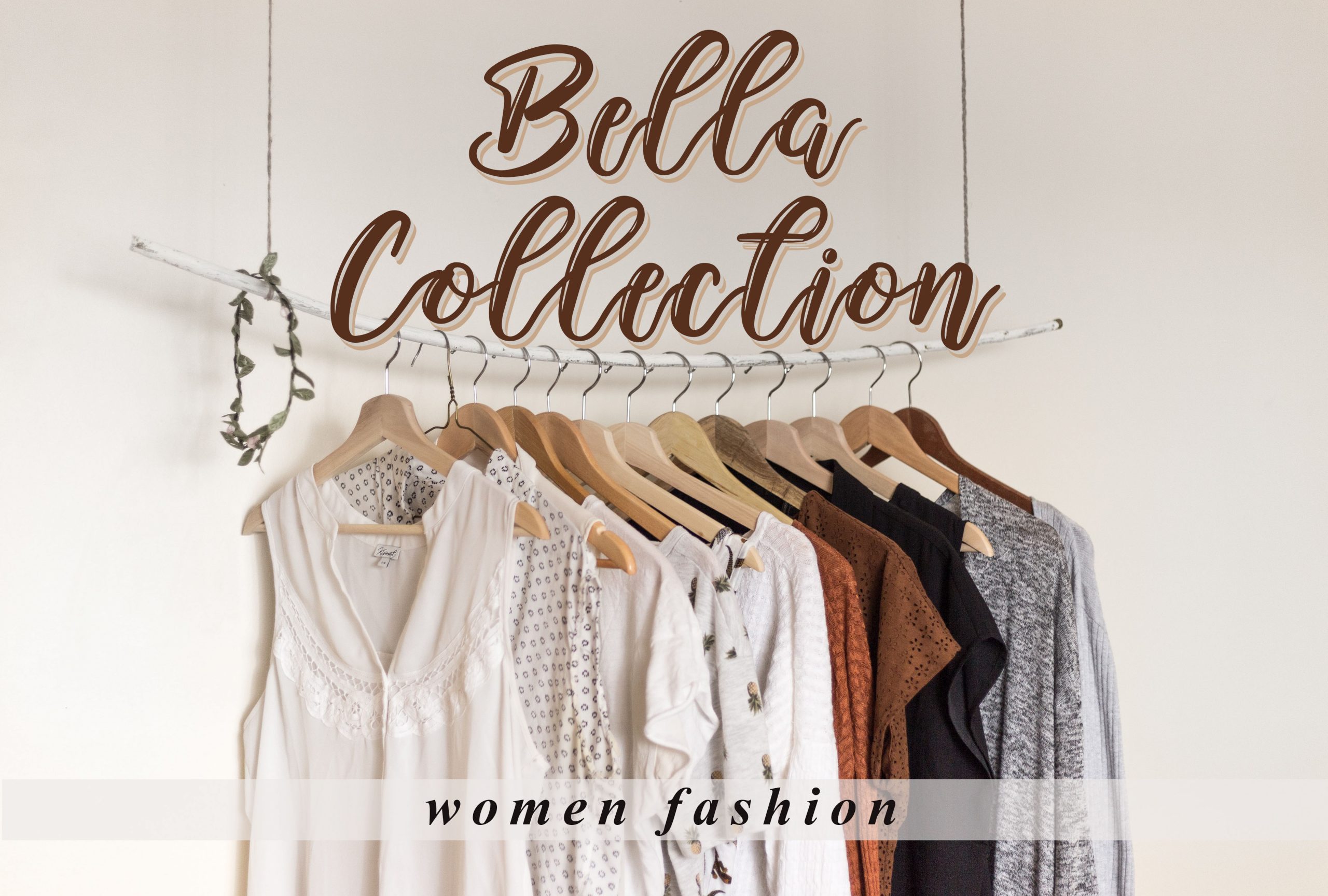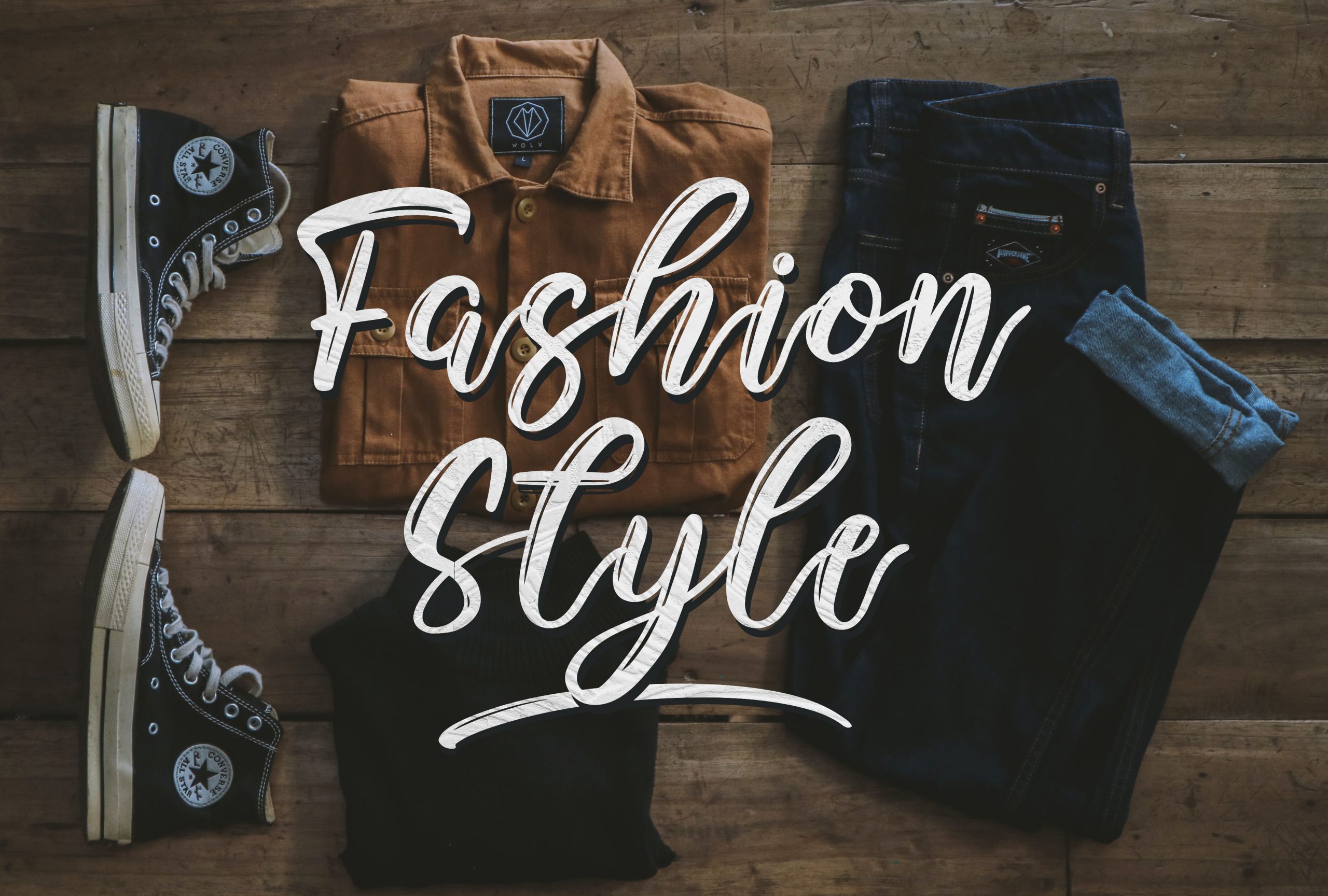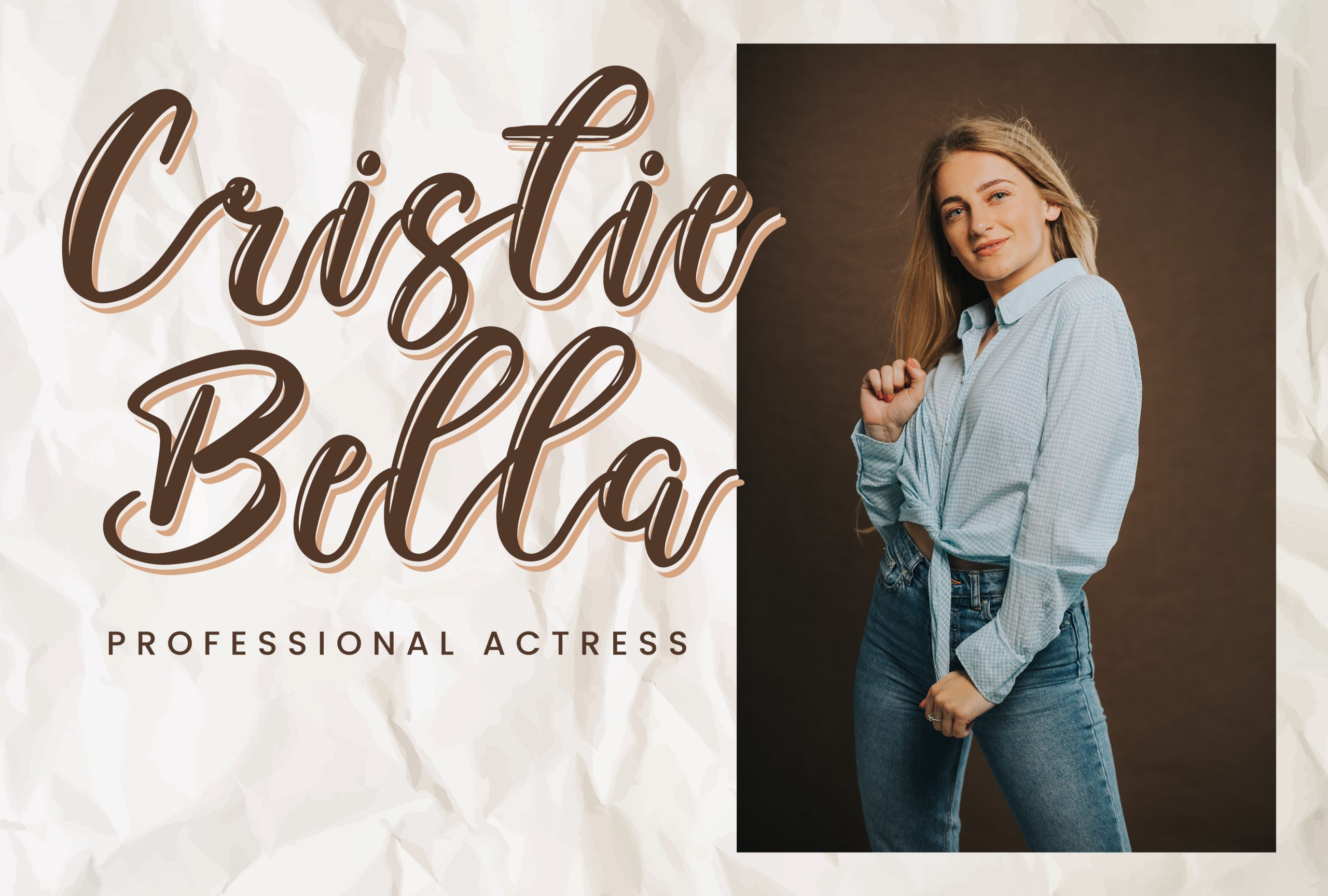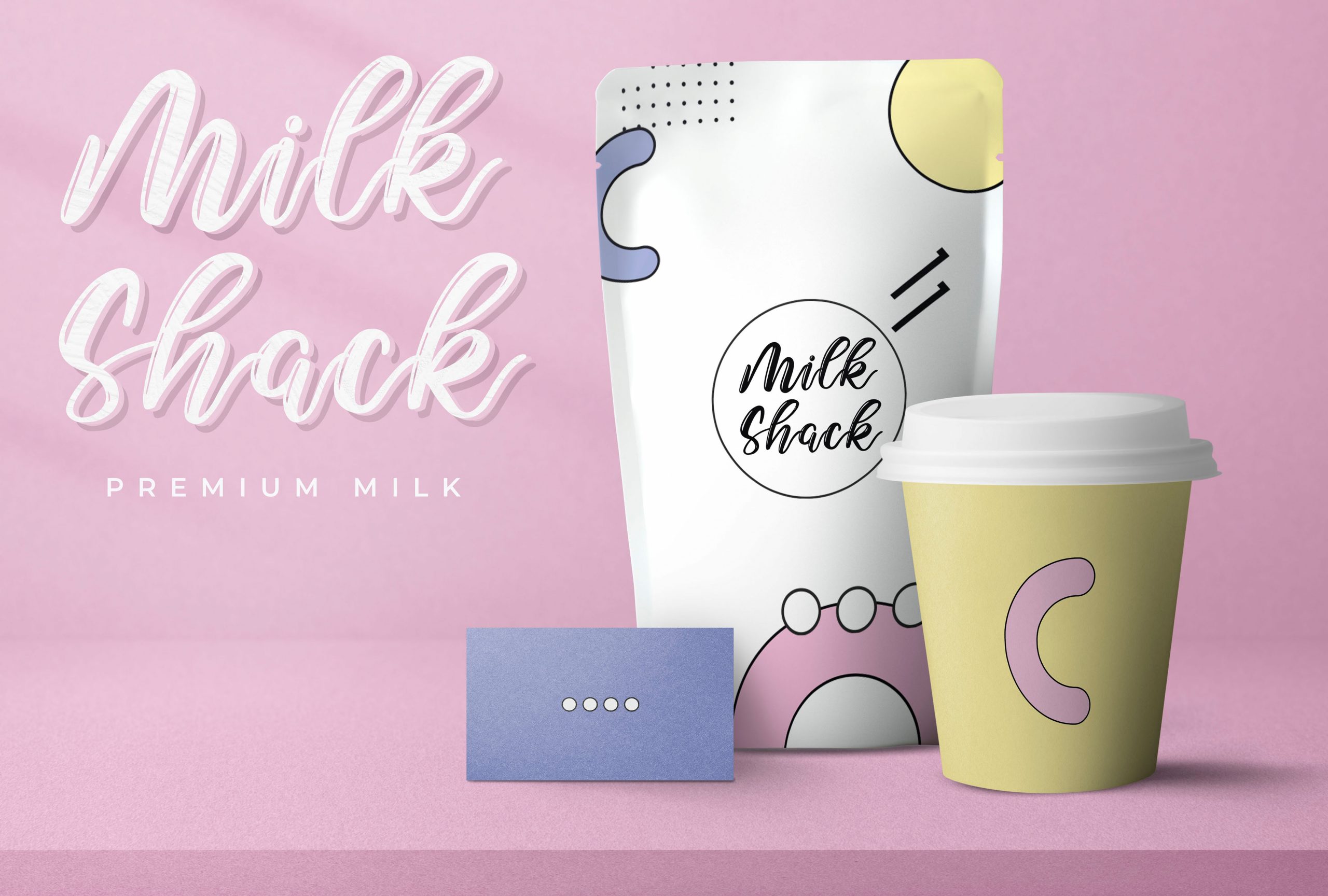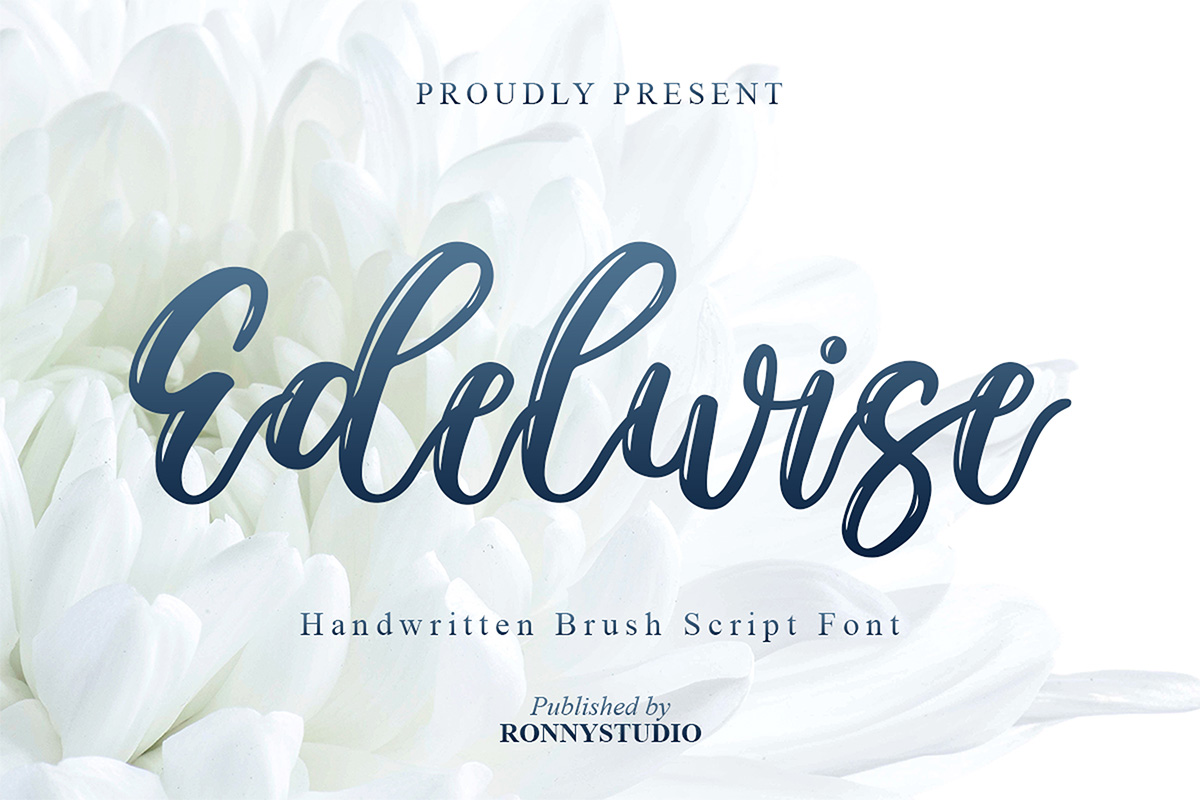
Edelwise Font
Edelwise Script Font
It’s a beautiful and timeless handwritten font. It is the best choice for creating attractive logos, branding, social media posts, weddings, decorations and quotes. This font is PUA encoded which means you can access all of the glyphs and swashes with ease!